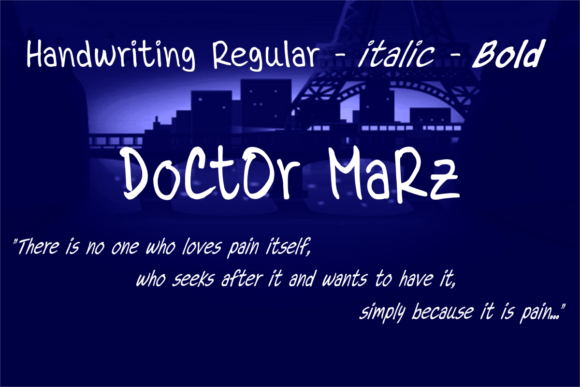
About Dr.Marz Font
Dr.Marz is a casual handwritten font, carefully handcrafted to become a true favorite. Its casual charm makes it appear wonderfully down-to-earth, readable and, ultimately, incredibly versatile. This font will look outstanding in any context, whether itβs being used on busy backgrounds or as a standalone headline!